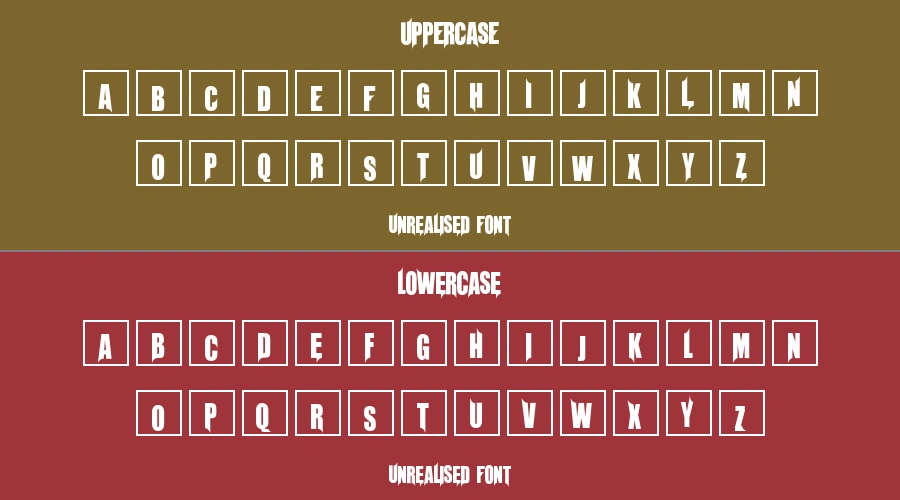
About Unrealised Font
Unrealised Font embodies typographic excellence through its masterful combination of elegant spacing and professional finish. Created for legal documents, this typeface delivers exceptional originality and consumer connection across all applications. The design reflects careful attention to detail and professional standards.
Advanced capabilities include distinctive confident strokes and versatile contextual ligatures, giving designers creative control. When used in footnotes, Unrealised Font exhibits remarkable kerning accuracy. The harmonious balance between joint detail and market positioning sets this typeface apart.